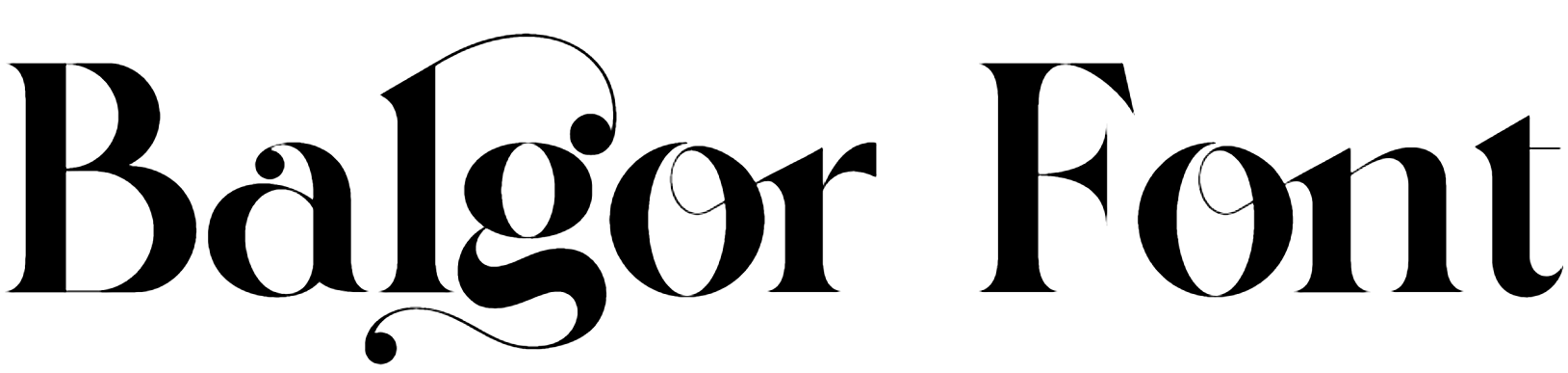
Balgor
Balgor is a serif font (2021). It has the traditional, bookish feel of type you see in novels, newspapers and long-established brands. You can download it for free and test it with your own words in the preview above.
- OpenType features: Ligatures (including optional ones)
- Extra characters: 57 copy-and-paste alternates (Private Use Area)
With complete upper and lowercase letters and all ten digits, Balgor is ready for real wording, not just a single headline. Everyday marks like &, !, ? and @ are there too. Thanks to its accented letters, it also works for Spanish, French, German, Portuguese and Italian, not just English.
Think of Balgor for book covers, magazine headlines and classic branding. Serif fonts shine in headlines and printed text. For long paragraphs on phones, check that it still reads well at small sizes.